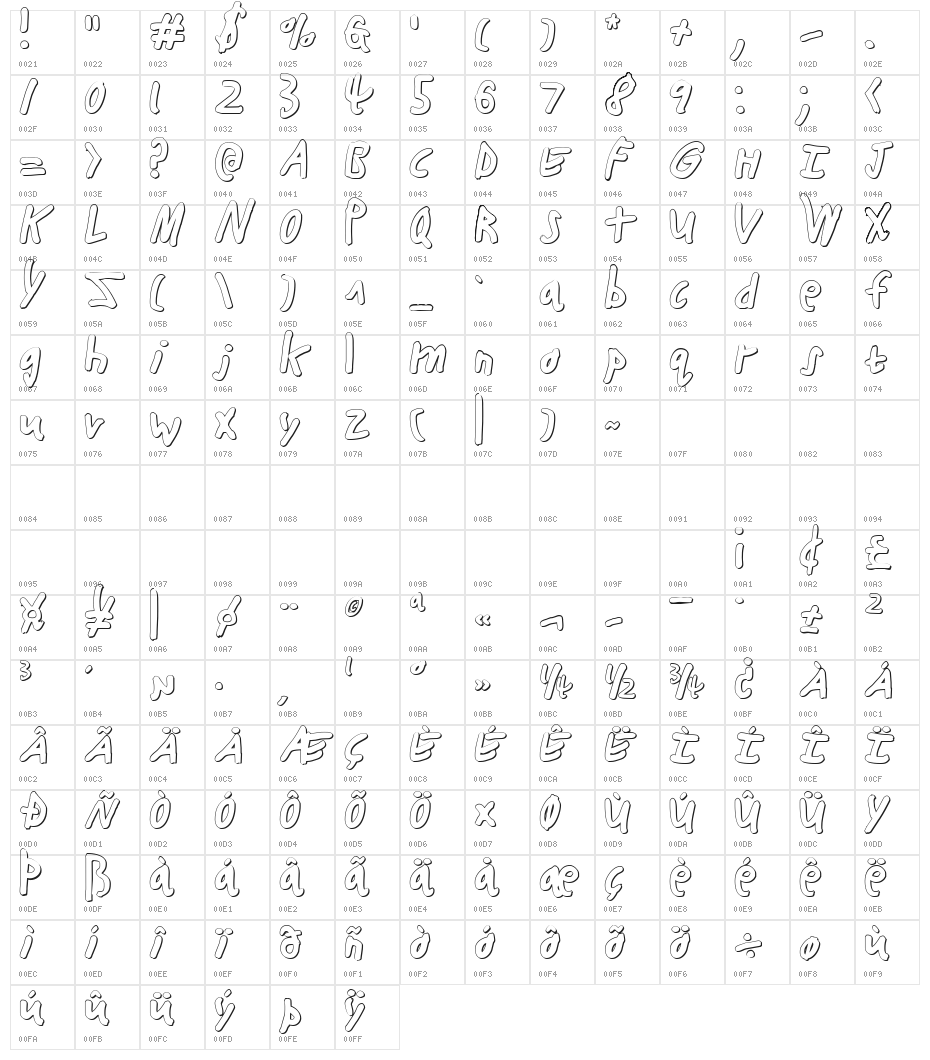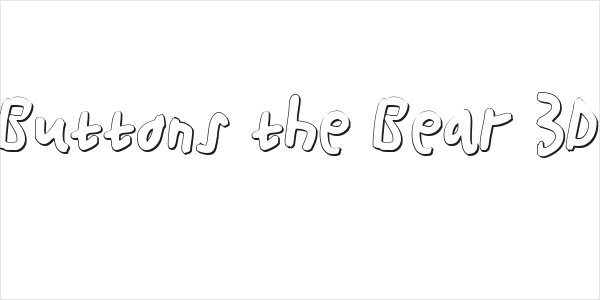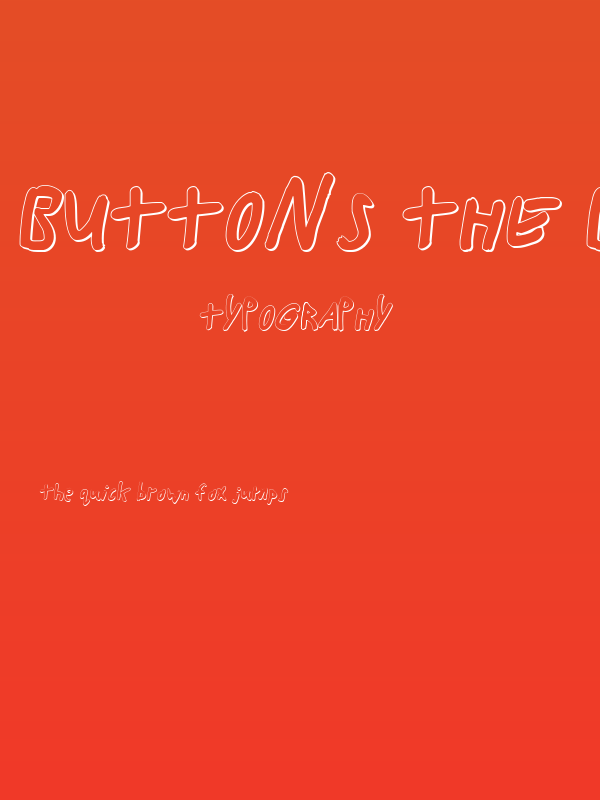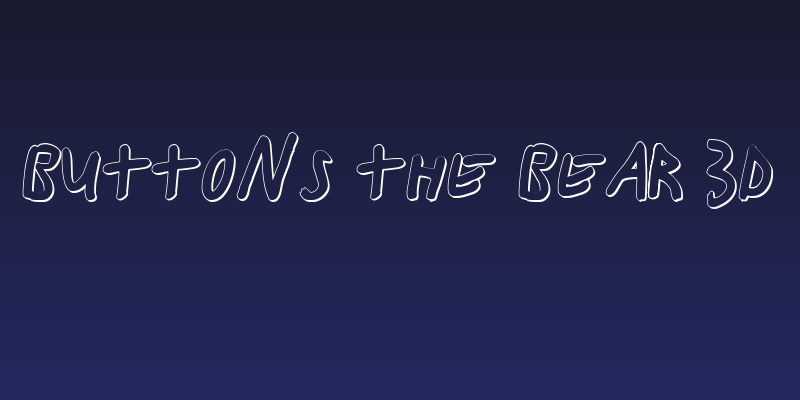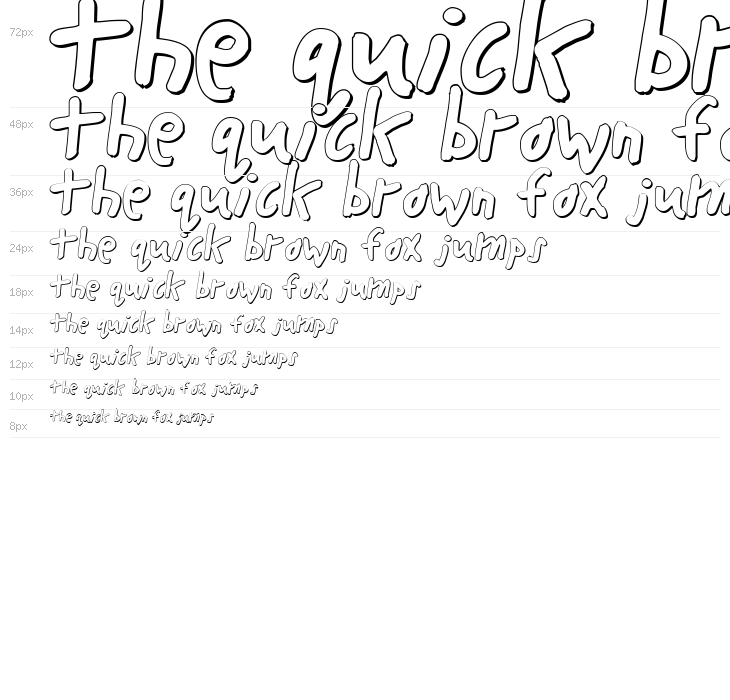
Buttons the Bear 3D Font
Buttons the Bear 3D Description
This playful and whimsical font features a hand-drawn, cartoonish style with bold outlines that give it a 3D effect. The characters are slightly irregular, adding a casual and friendly vibe. The uppercase and lowercase letters maintain a consistent style, with rounded edges and a slight tilt, enhancing the font's informal appearance. The numbers and special characters follow the same design principles, ensuring uniformity across all glyphs. This font's unique style makes it stand out, making it suitable for creative and fun projects.
| Proposed Projects | Ideal for children's books, comic strips, playful branding, and greeting cards. |